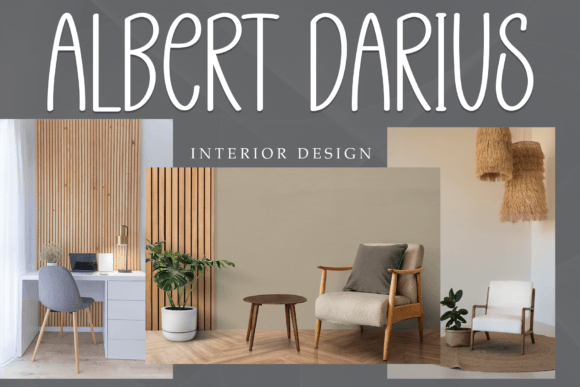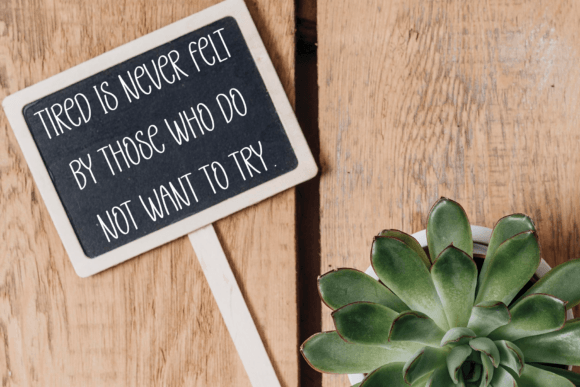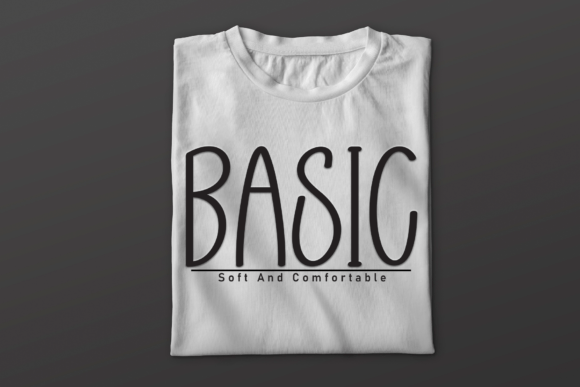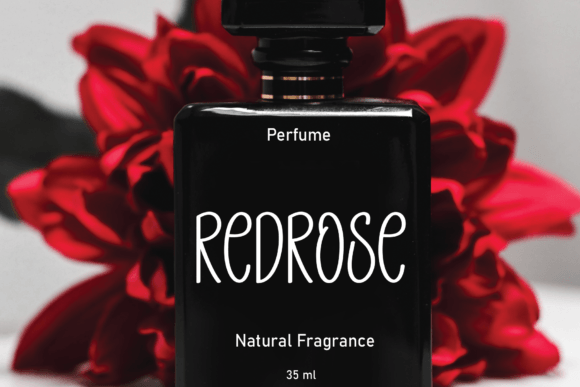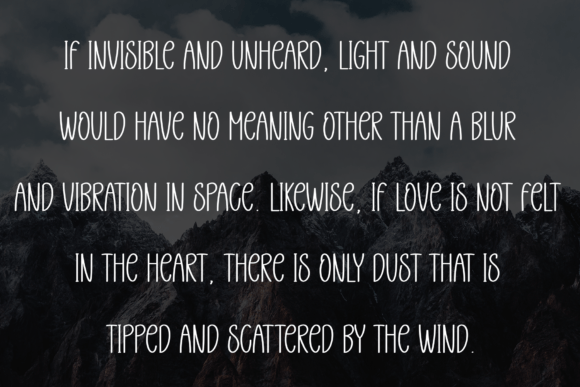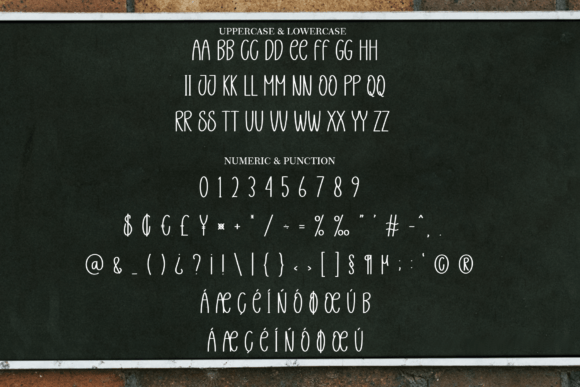
Introducing the Blackboard Font: A Cute and Fun Addition to Your Design Arsenal
Are you tired of using the same old fonts for your designs? Do you want to add a touch of whimsy and playfulness to your wedding invitations, cards, or other creative projects? Look no further than the Blackboard Font! This charming font is perfect for designers and crafters who want to add a dash of fun and personality to their work.
What is the Blackboard Font?
The Blackboard Font is a digital font designed to mimic the look of chalkboard writing. It’s a sans-serif font with a friendly, approachable feel that’s perfect for a wide range of design applications. The font features rounded edges and a subtle texture that gives it a hand-drawn feel, making it ideal for creating designs that are both modern and nostalgic.
Why Use the Blackboard Font?
So why should you use the Blackboard Font for your designs? Here are just a few reasons:
- Cute and Fun: The Blackboard Font is the perfect way to add a touch of whimsy and playfulness to your designs. Its friendly, approachable feel makes it ideal for creating designs that are both fun and engaging.
- Versatile: The Blackboard Font is versatile enough to be used for a wide range of design applications, from wedding invitations and cards to posters, flyers, and more.
- Easy to Read: Despite its playful feel, the Blackboard Font is easy to read, even at small sizes. This makes it perfect for creating designs that need to be both visually appealing and functional.
One of the most popular uses for the Blackboard Font is for wedding invitations and cards. The font’s friendly, approachable feel makes it perfect for creating wedding designs that are both modern and romantic. Imagine creating a beautiful wedding invitation with the Blackboard Font – the rounded edges and subtle texture give the font a charming, hand-drawn feel that’s sure to impress.
But the Blackboard Font isn’t just limited to wedding invitations. It’s also perfect for creating other types of cards, such as birthday cards, get-well cards, and more. The font’s playful feel makes it ideal for creating designs that are both fun and heartfelt.
Tips for Using the Blackboard Font
Here are a few tips for using the Blackboard Font in your designs:
- Pair it with Other Fonts: The Blackboard Font pairs well with other fonts, such as serif fonts or script fonts. Experiment with different font combinations to find the perfect look for your design.
- Use it for Headlines and Titles: The Blackboard Font is perfect for headlines and titles, where its playful feel can really shine. Use it to add a touch of whimsy to your design.
- Experiment with Colors: The Blackboard Font looks great in a variety of colors, from bright and bold to soft and pastel. Experiment with different colors to find the perfect look for your design.
In conclusion, the Blackboard Font is a cute and fun addition to any designer’s arsenal. Its friendly, approachable feel makes it perfect for creating designs that are both modern and playful. Whether you’re creating wedding invitations, cards, or other designs, the Blackboard Font is sure to add a touch of whimsy and personality to your work. So why not give it a try? Download the Blackboard Font today and start creating designs that are both fun and engaging!
- Font Style: Sans-serif
- Language: English and other languages that use the Latin alphabet